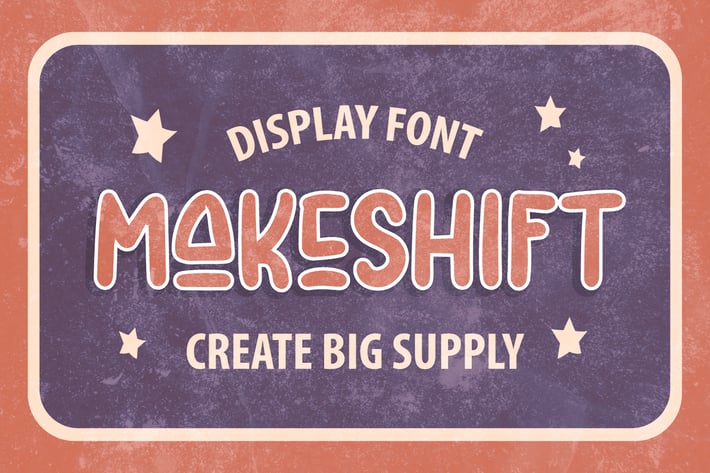
Makeshift - Unique Display font
Makeshift Font is a unique, bold and fun look. This will add a very unique and powerful touch to your design. This font is PUA encoded which means you can access all the glyphs and sweeps easily!
+Uppercase & lowercase
+Numbers and punctuation
+Multilingual